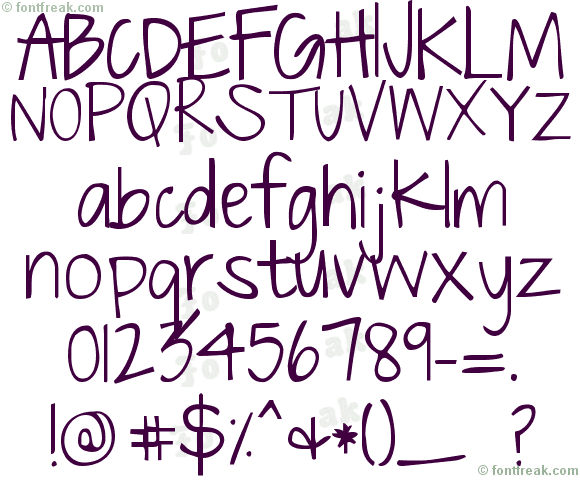
Just The Way You Are
About Just The Way You Are
The "Just The Way You Are" font by Kimberly Geswein is a charming handwritten typeface that exudes warmth and personality. This script-style font is characterized by its playful strokes and a casual aesthetic, making it ideal for a variety of creative projects. With a medium stroke weight and a moderate contrast, the letters flow smoothly, giving it an approachable and friendly feel. The spacing between characters is well-balanced, ensuring legibility while maintaining an inviting appearance. Decorative elements are minimal, allowing the natural beauty of the handwritten style to take center stage.
This font is particularly well-suited for wedding invitations, where its romantic flair can enhance the overall theme. It works beautifully for greeting cards, adding a personal touch to heartfelt messages. Small business owners can leverage "Just The Way You Are" for branding materials, such as logos or promotional flyers, where an informal yet stylish vibe is desired. Additionally, content creators can use this font in social media graphics, ensuring their posts stand out with a unique flair that resonates with viewers.
Targeted towards graphic designers, small business owners, and content creators, this font appeals to anyone seeking a distinctive handwritten style that embodies individuality and charm. Its versatile nature allows it to adapt to various contexts, making it a valuable addition to any designer's toolkit.
What sets the "Just The Way You Are" font apart is its ability to convey emotion and personality effortlessly. It captures the essence of genuine handwritten communication, making it a perfect choice for projects that require a personal touch. For those interested in enhancing their designs, the "Just The Way You Are font free download" offers an opportunity to incorporate this delightful typeface into their creative endeavors.